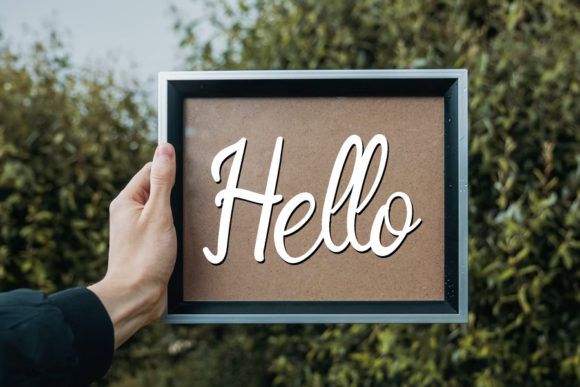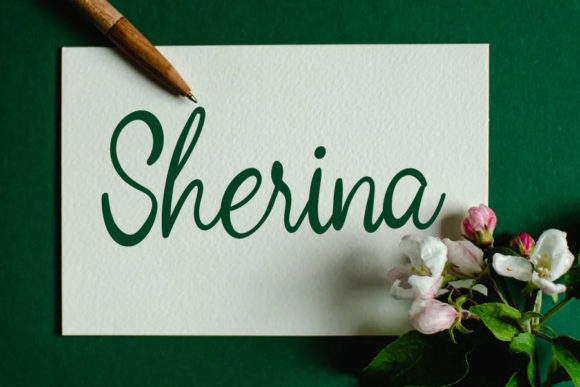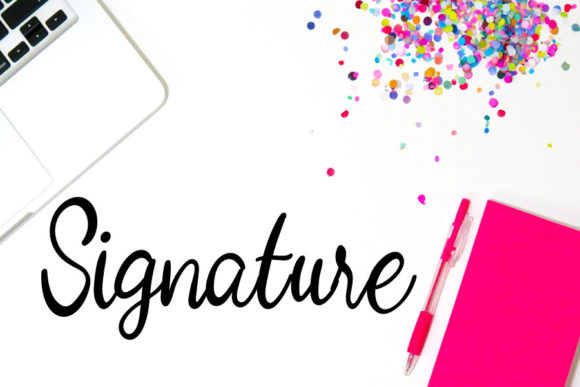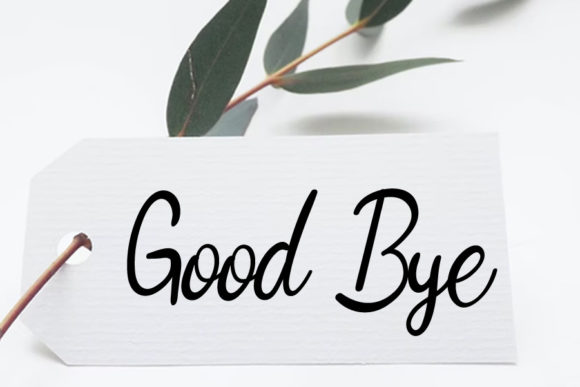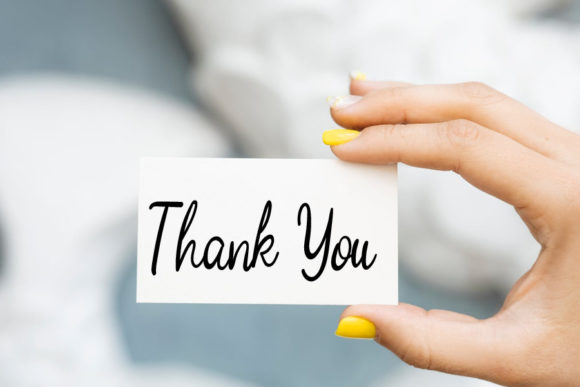
Introduction to Qomaroon Font
Qomaroon is a relaxed script font, featuring a gorgeous flow.
Fall for its ravishing style and use it to create gorgeous wedding invitations, beautiful stationary art, eye-catching social media posts, and much more .